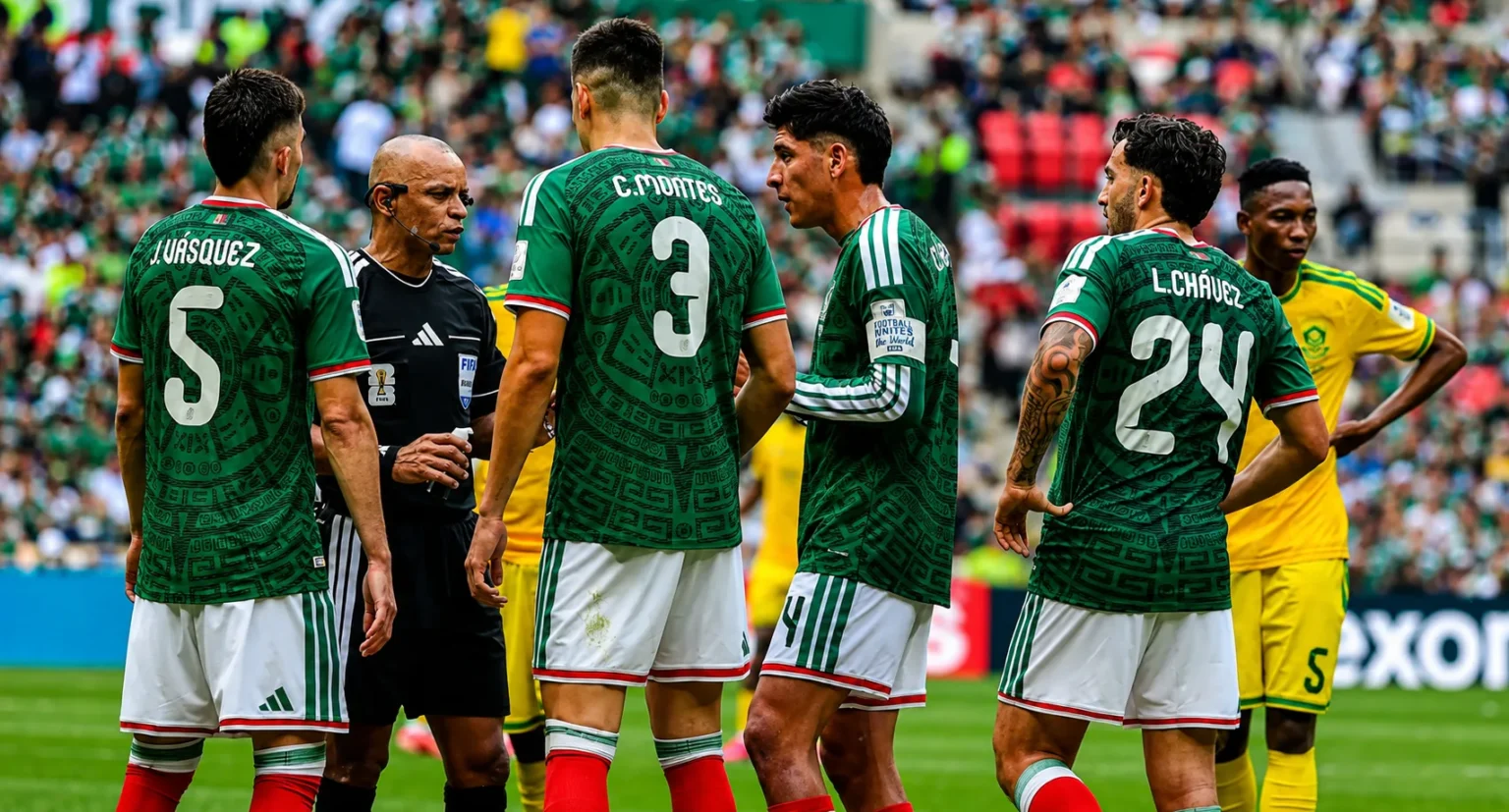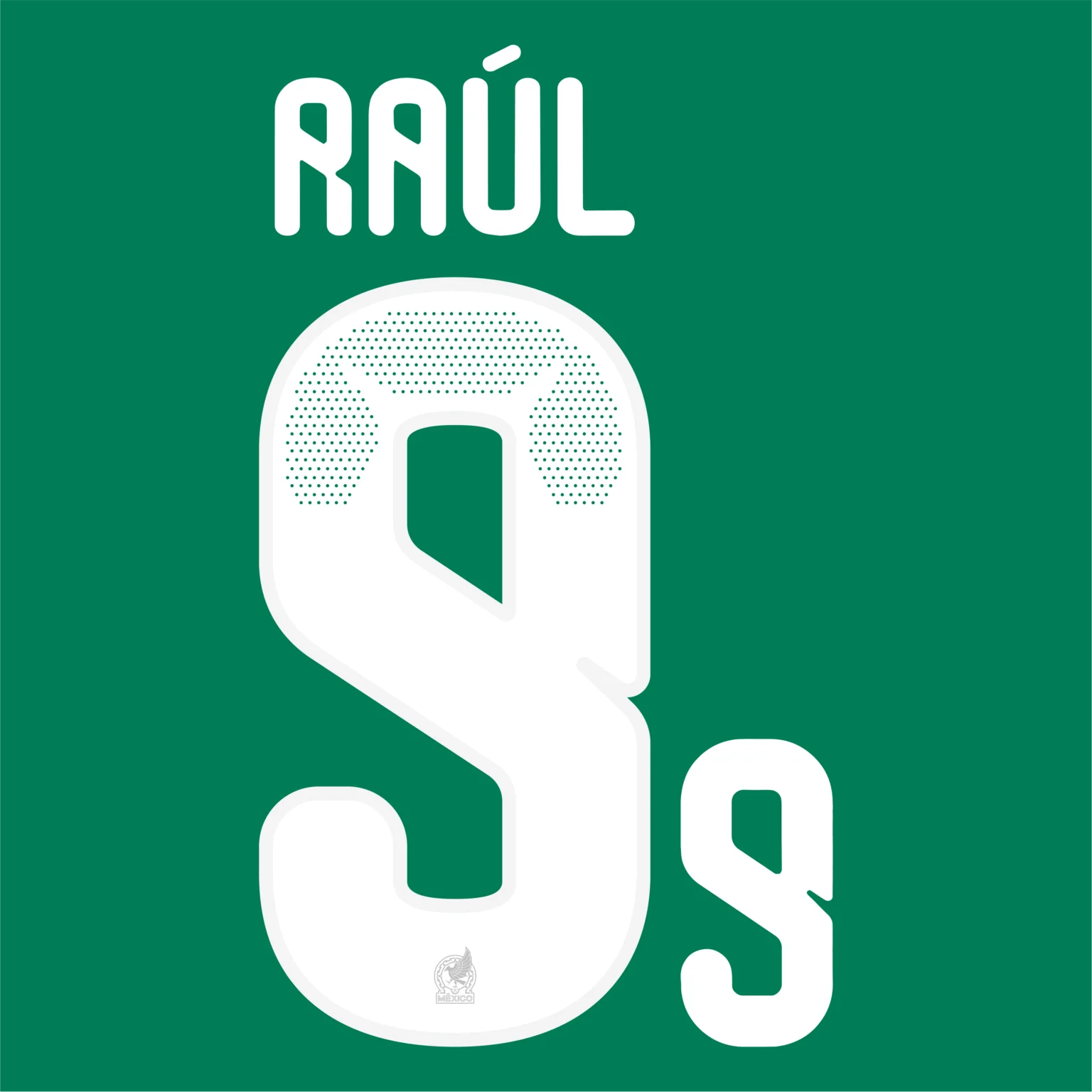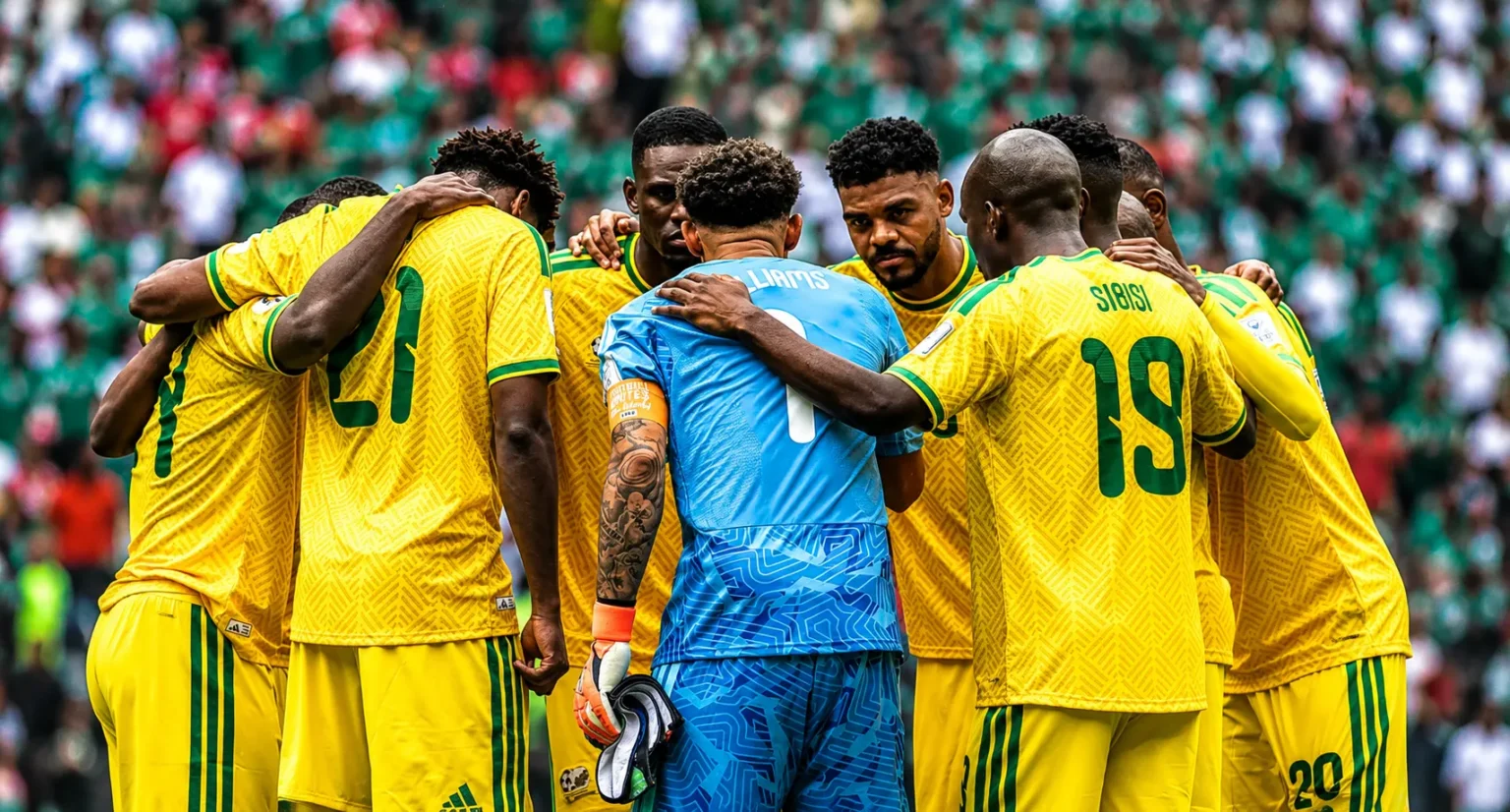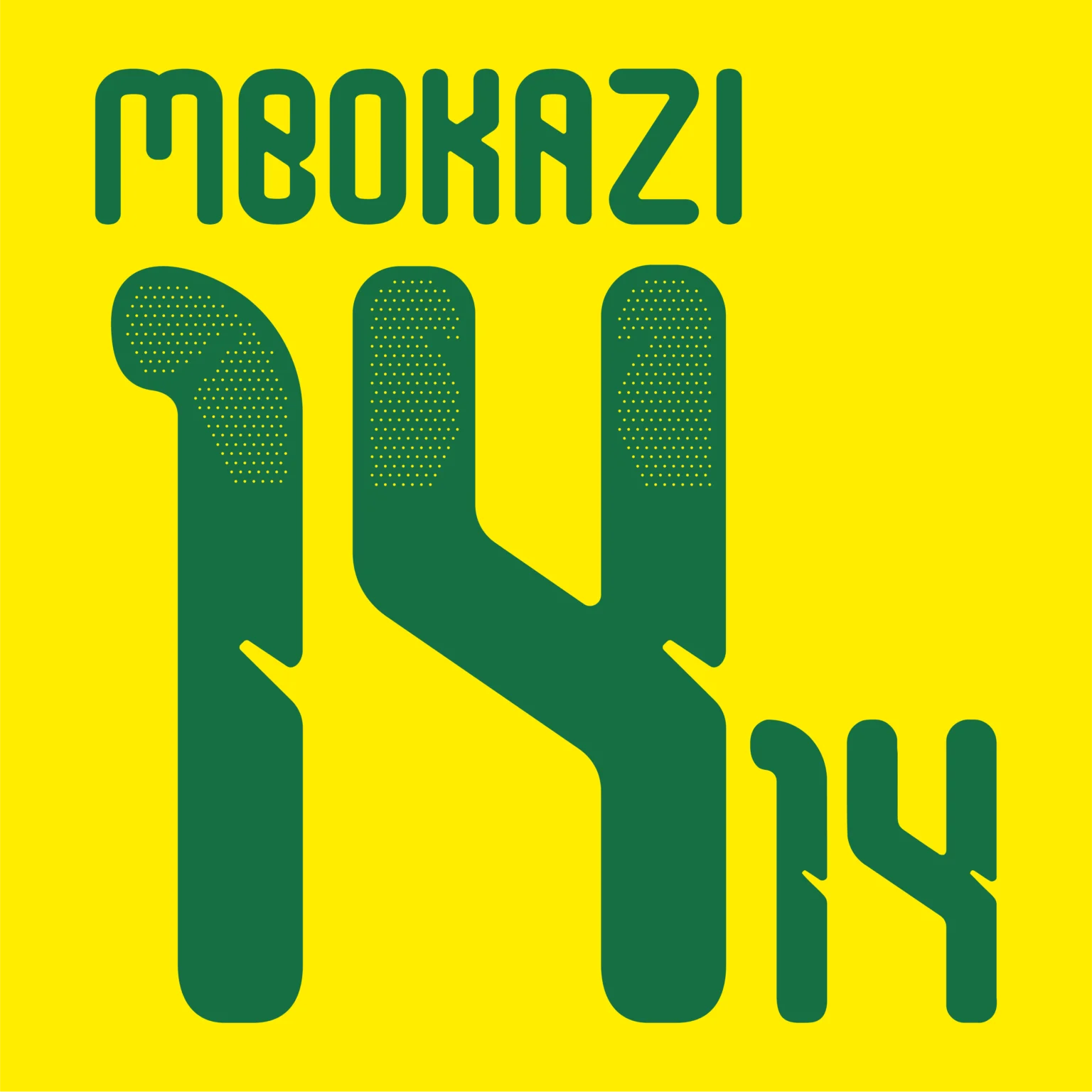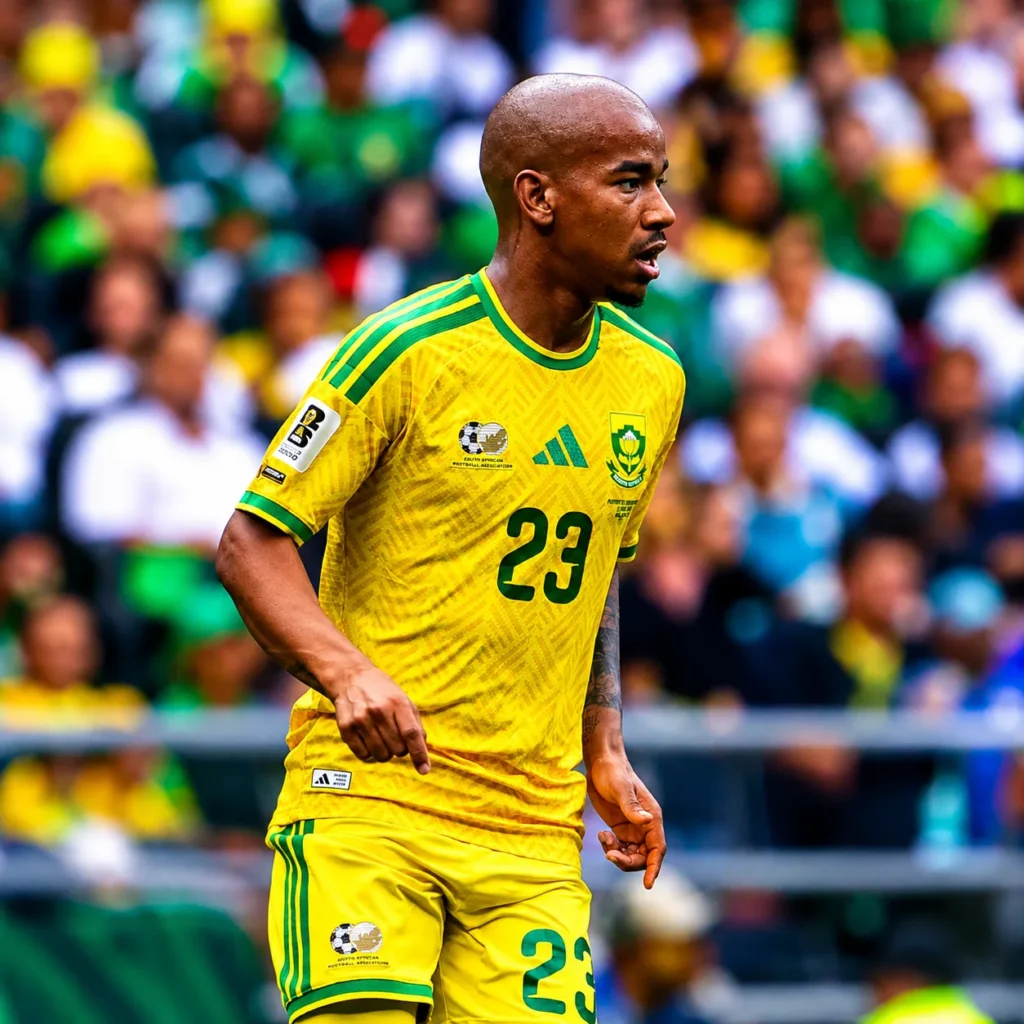
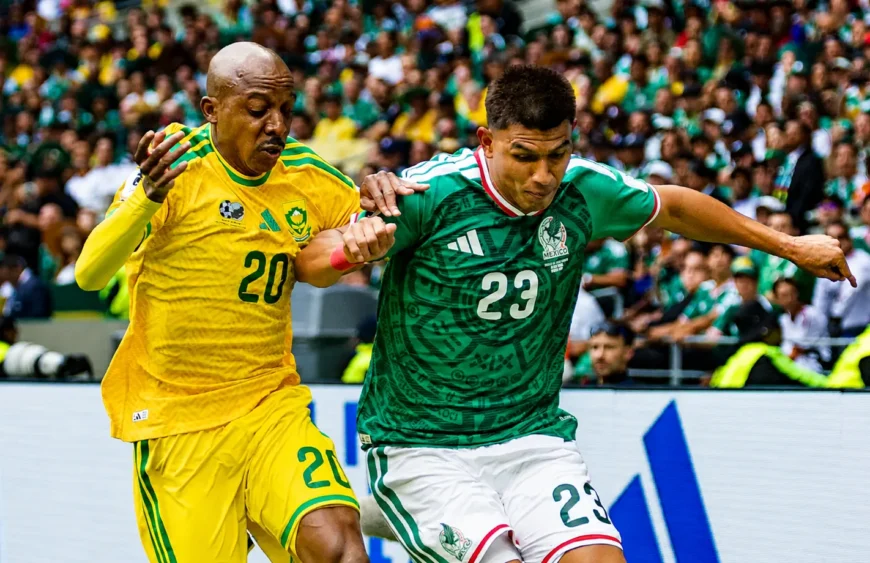
Design Tip: Create a strong nameset “QUIÑONES 9” using the official Adidas 2026 font — the same font used by both teams in Mexico vs South Africa 2026.
Jiménez headed the second goal and paid tribute to his late father. Nameset Idea: Use “JIMENEZ 9” or “RAUL 9” with the shared Adidas font. The font’s subtle modern curves pair beautifully with Mexico’s deep green Aztec-patterned home kit and gold accents.
Design Opportunity: The shared Adidas 2026 font works perfectly for creating intense, high-energy namesets. To capture the drama and fire of this match, try adding thick bold outlines, red glow effects, or use a condensed version of the font. These modifications will make namesets like “QUIÑONES 9” or “WILLIAMS 1” look aggressive and powerful while still staying true to the official Adidas style used by both Mexico and South Africa. This approach is ideal for designers who want to produce limited-edition custom jerseys that reflect the raw emotion and intensity of the Mexico vs South Africa 2026 clash.
Design Recommendation: Build namesets like “WILLIAMS 1” and “MOKOENA 4” using the same Adidas 2026 font from the Mexico vs South Africa 2026 match.
5. The 2026 Adidas Kits & Shared Font
Both teams used the exact same premium Adidas nameset font in the Mexico vs South Africa 2026 game.
The shared Adidas font (bold yet versatile) is highly sought after by designers because it looks professional on both kits and scales perfectly for vinyl, heat press, or sublimation printing.
In 2010, South Africa drew 1-1 thanks to Siphiwe Tshabalala’s iconic goal. In 2026, Mexico got revenge on home turf — completing a beautiful football circle. Legacy Tip: Many designers now combine classic 2010 namesets (like Tshabalala 22) with the new Adidas 2026 font for Quiñones and Jiménez. A bundle covering both eras sells very well.
7. The Power of a Great Nameset
This match reminded everyone how a well-designed nameset can elevate a jersey. Because both teams used the same Adidas font, it’s easier than ever to create professional-looking custom kits for collectors, fantasy teams, or retro-modern collections.